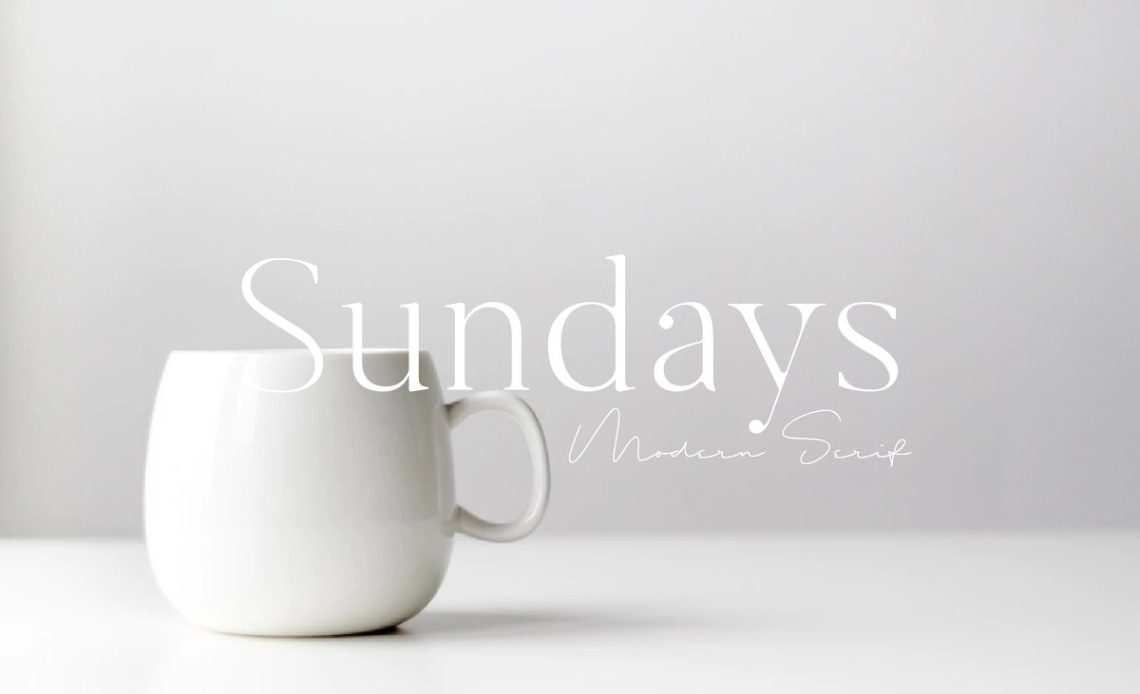
\n\nIntroducing Sundays - the modern serif font that will elevate your designs to a whole new level. Sundays, created by New Tropical Design Studio, is the perfect combination of modern and classic styles, making it the best font for classic menus. \n\nWith subtle curves and minimal serifs, Sundays takes inspiration from classic fonts like Baskerville but adds a modern twist. The font family is serif, making it ideal for mastheads, magazines, logos, and headers. Sundays is versatile and pairs well with any simple sans serif font like Lato / Proxima Nova or a light script font. \n\nSundays is not just any font. It's a font that tells a story - a story of sophistication, elegance, and modernity. Its sleek and stylish design makes it perfect for menus, invitations, posters, and any other design project that requires a touch of class. \n\nBut what really sets Sundays apart is its attention to detail. The font comes with numbers and symbols, making it a complete package for any design project. Whether you're designing a wedding invitation or a restaurant menu, Sundays has got you covered. \n\nSo why wait? Download Sundays now and experience the magic of this modern serif font. Take your designs to the next level and stand out from the crowd. With Sundays, you can create designs that are both timeless and contemporary. \n\nIn conclusion, Sundays is not just a font, it's a statement. It's a statement of quality, elegance, and style. Get your hands on Sundays today and see the difference it can make to your designs.\n\n